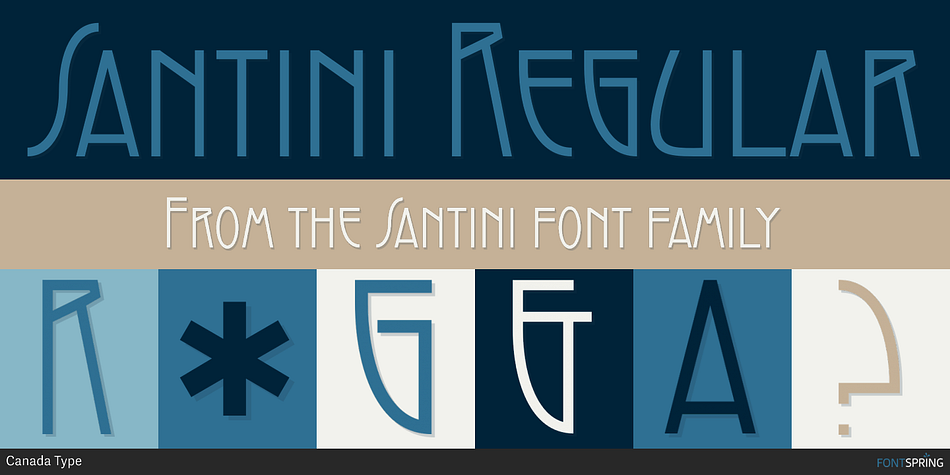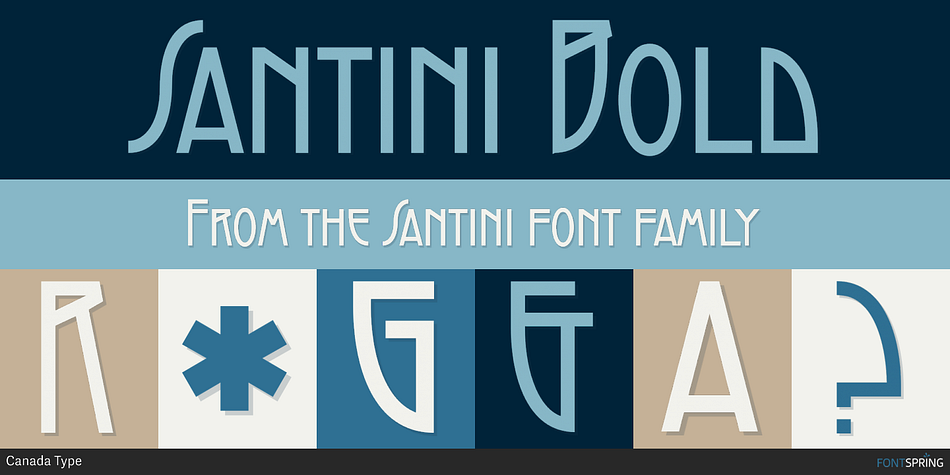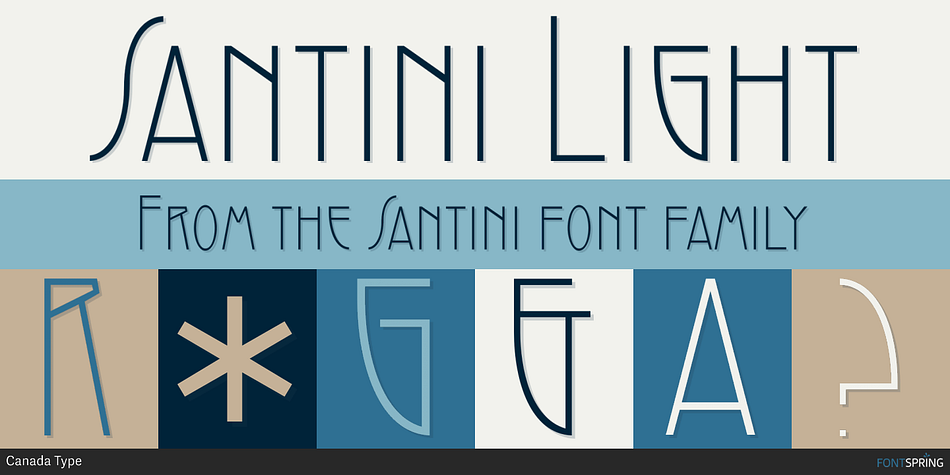
Santini is a retro font family. This typeface has three styles and was published by Canada Type.
Santini began as an experiment in mixing historical art deco, art nouveau, arts and crafts, and to a lesser extent Bauhaus sources.
Surprised at the pleasant outcome of the experiment, we expanded it to become three weights, and included some alternates within the fonts themselves.
Santini is an excellent choice for art- and architecture-related design, where the message needs to be conveyed in a clear yet sturdy and modern fashion.